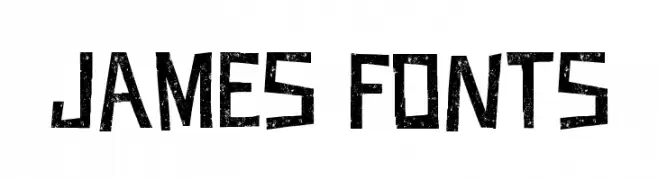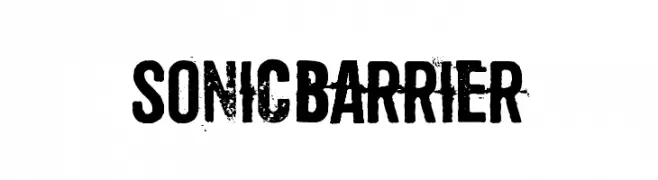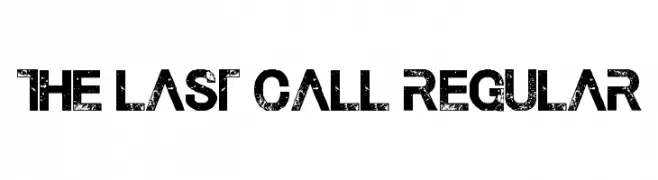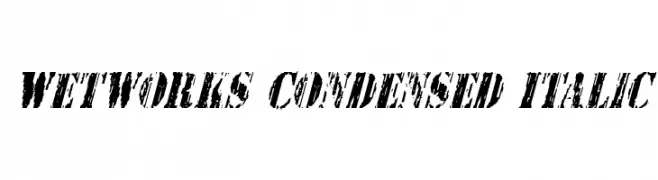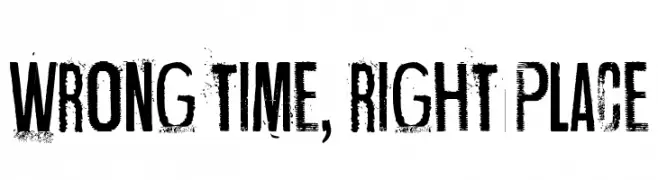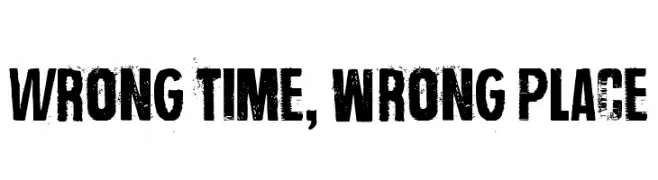
A distressed, grunge-style font with a bold, rugged appearance.
A bold, distressed font with a vintage, grunge aesthetic.
A bold, distressed grunge font with a rugged, worn-out appearance.
A distressed, condensed italic font with a grunge aesthetic.
A bold, distressed font with a grunge, urban style.
A bold, distressed font with a grunge, urban aesthetic.
A bold, distressed font with a grunge texture and rugged appearance.
A bold, distressed font with a grunge aesthetic.